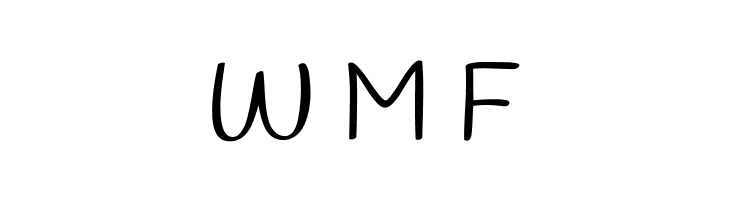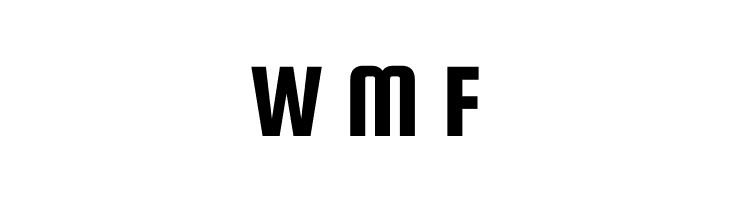
Varela Round Font
A clean, rounded typeface with a friendly and modern aesthetic.
Questrial-Regular Font
A modern, clean sans-serif font with uniform stroke width and excellent readability.
Questrial Font
A clean, modern sans-serif font with uniform stroke width and excellent readability.
Venera900 Font
A modern, geometric font with a sleek and futuristic design.
Handlee Regular Font
A casual, handwritten font with smooth curves and a friendly appearance.
VarelaRound Font
A modern, rounded font with clean lines and a friendly appearance.
Squada One Font
A bold, modern font with clean lines and strong presence.
NTR Font
A modern, clean sans-serif font with rounded edges and uniform strokes.
SquadaOne-Regular Font
A bold, geometric font with a modern style, perfect for impactful headlines and branding.
Varela Font
A modern sans-serif font with rounded edges and balanced proportions.
Venera700 Font
A sleek, modern geometric font with clean lines and smooth curves.
Venera500 Font
A sleek, modern font with geometric lines and a minimalist aesthetic.
Venera300 Font
A sleek, modern font with geometric and minimalist design.
Geostar Fill Font
A geometric, futuristic font with sharp angles and a modular structure.
Venera100 Font
A sleek, geometric font with a modern, minimalist design.
Geostar Font
A geometric, futuristic font with angular, modular letterforms and consistent line weight.
Geostar-Regular Font
A geometric, futuristic font with sharp angles and a structured design.
GeostarFill-Regular Font
A geometric, futuristic font with angular, blocky letterforms.